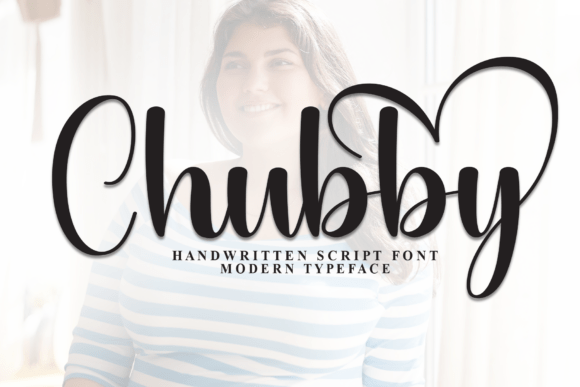
Discover the Secret to Adding Personality to Your Designs
As a designer, there’s nothing quite like the thrill of finding the perfect font to bring a project to life. It’s that ‘aha’ moment when the words on the page start to dance, and the message shines through. For many, it’s a search that can take hours, if not days. But what if you could add a dash of elegance and playfulness to your designs with just a few strokes?
Enter the Chubby Font, a stylish handwritten script that’s been winning hearts of designers and creatives alike. With its flowing curves and natural rhythm, this charming font is perfect for invitations, branding, and social media. Its warmth and sophistication make it a valuable addition to any project, and its creativity knows no bounds. Whether you’re a seasoned pro or just starting out, the Chubby Font is sure to bring a personal touch to your designs.
Key Features of Chubby Font
- Unique Characteristics: The font’s distinctive rounded shapes and bold lines give it a playful, yet professional feel, making it perfect for use in logos, branding, and advertising.
Designer Review: Chubby Font
Overall, I think Chubby Font has some great qualities, but it also has some limitations. Let’s start with the good stuff!
- ✨ Unique charm: Chubby Font has a distinct, playful feel that can add character to any design project.
- ✨ Friendly, approachable: The font’s rounded edges and soft curves make it perfect for creating a warm, inviting atmosphere.
- ✨ Versatile: Chubby Font can be used for a wide range of projects, from children’s books to food labels.
Now, let’s talk about the limitations.
- ⚠️ Limited legibility: While Chubby Font is great for short text, it can be difficult to read at larger sizes or in complex layouts.
- ⚠️ Not ideal for formal text: The font’s playful feel makes it less suitable for formal documents, such as resumes or academic papers.
- ⚠️ Limited language support: Chubby Font may not support all languages, which can be a limitation for global design projects.
Overall, I think Chubby Font is a great addition to any designer’s toolkit. While it may not be suitable for every project, its unique charm and versatility make it a valuable asset for creative projects.
Practical Application Guide for Chubby Font
For a more authentic look, pair Chubby Font with bold and colorful graphics.
For a more polished look, use Chubby Font with bold lines and vibrant colors.
For a more playful look, use Chubby Font with bright colors and fun graphics.
Chubby Font is perfect for:
- Children’s educational materials
- Playful advertisements
Remember to pair Chubby Font with bold and colorful graphics for a more authentic look.
Alternatives to Chubby Font
Playfair Display is an elegant, high-end serif font that works well for luxury brands and high-end products. It has a classic feel and is ideal for use in logos, titles, and headings. When to use: luxury brands, high-end products, elegant designs.
Playfair Display is a more elegant and refined alternative to Chubby Font, with a more classic feel and a wider range of weights and styles. While Chubby Font is playful and casual, Playfair Display is sophisticated and luxurious.
Great Vibes is a modern, script font that works well for creative and artistic brands. It has a fun and energetic feel and is ideal for use in headings, titles, and social media graphics. When to use: creative brands, artistic designs, social media graphics.
Great Vibes is a more casual and playful alternative to Chubby Font, with a more modern and trendy feel. While Chubby Font is rounded and soft, Great Vibes is more fluid and expressive.